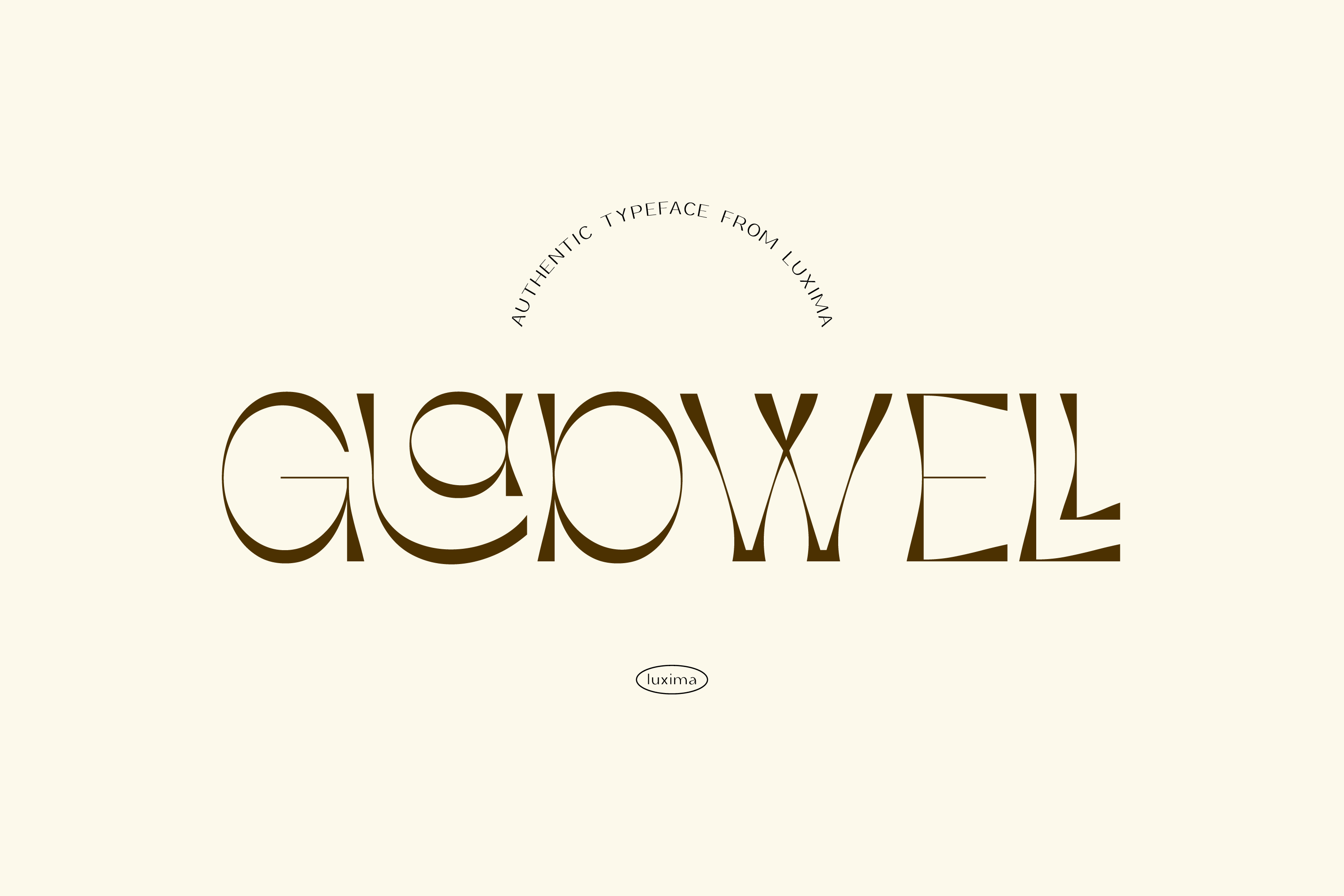
GLADWELL - Display Font
Introducing the Gladwell typeface. Inspired by a unique palm tree trunk. This typeface gives a distinctive and authentic impression. Suitable for independent and challenging projects. Just for you, because you deserve it.
Gladwell consists of uppercase letters, lowercase, digits letters, punctuation marks, multilingual letters, 1 stylistic alternate, and 1 stylistic set. 501 characters in total.